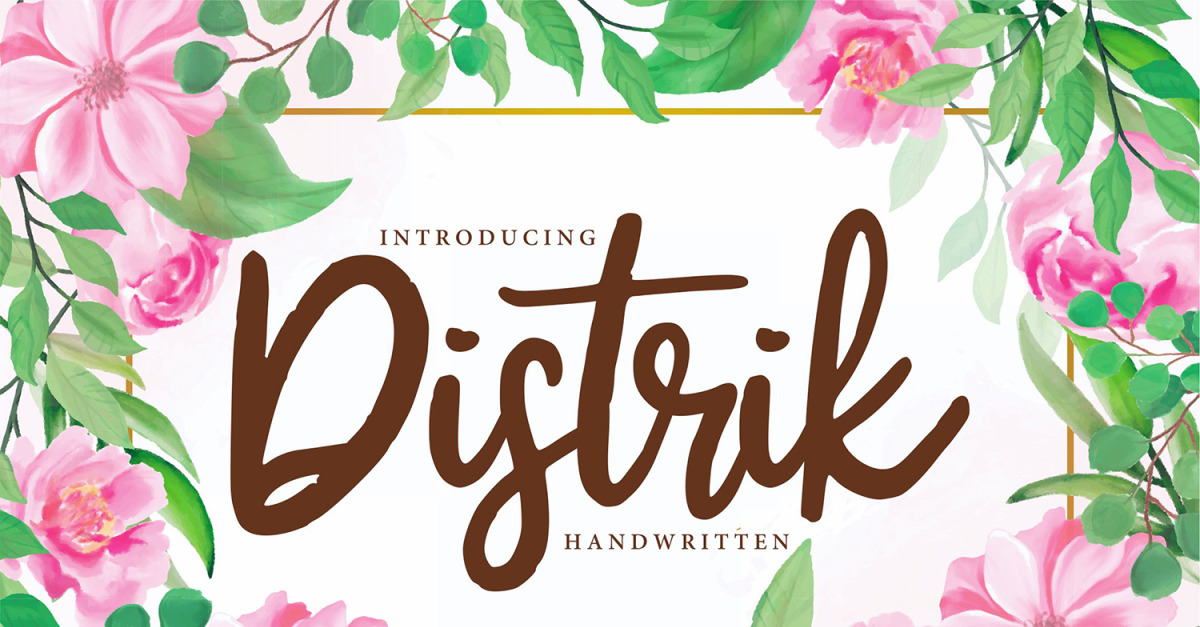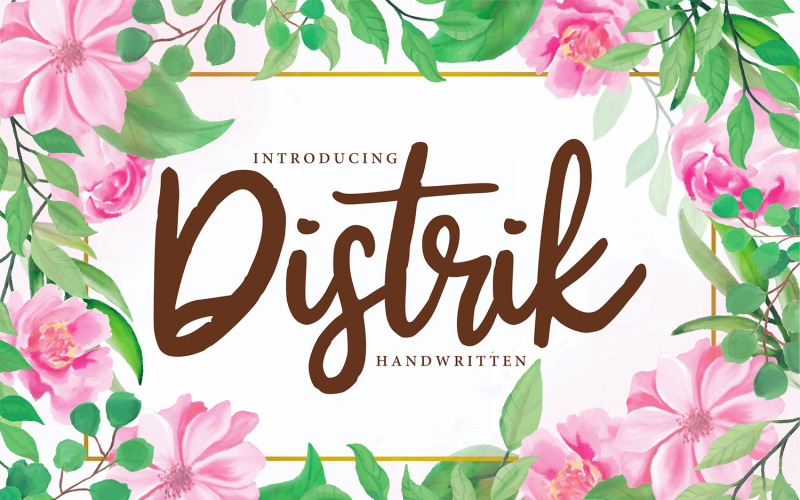
Distrik | Handwritten Cursive Font
**Distrik | Handwritten Script Font** with a calligraphy style, So beautiful on invitation like greeting cards, branding materials, business cards, quotes, posters, and more!